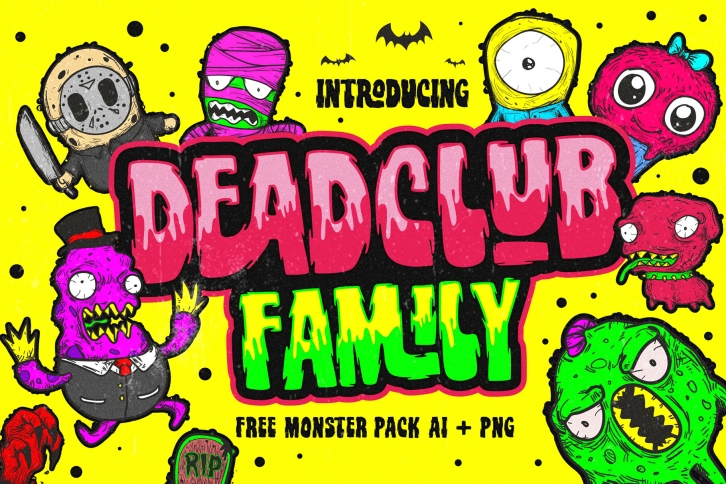
Deadclub Family Font | Bonus Monster Pack Ai and Png Download
Deadclub Family Font | Bonus Monster Pack Ai and Png Font Download
Deadclub Family is a trendy and unique font with an authentic style. It was designed by 160 Studio and it's a great choice for creative people who need such a font. It was released on September 12, 2019 and the file size is 21.77 MB. Deadclub Family will add an organic vibe to any design idea!